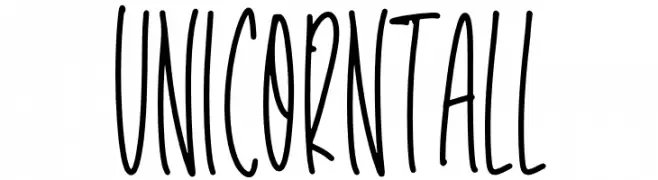
A bold, modern font with thick strokes and strong visual impact.
Bold, rounded handwritten style with playful energy.
A bold, playful handwritten font with energetic curves and a whimsical charm.
A whimsical calligraphic font with fluid strokes and elegant curves, perfect for creative projects.
A graceful cursive font with elegant, flowing characters.
A bold, playful font with rounded characters and a whimsical style.
A playful, handwritten-style font with tall, narrow letters and a whimsical touch.
A playful and whimsical font with decorative loops and rounded elements.
A whimsical, handwritten font with tall, narrow characters and consistent thin strokes.
A whimsical, playful font with flowing, curvy lines and varying stroke widths.
A playful, bold font with rounded, whimsical characters perfect for fun projects.
A whimsical font with unicorn horn and star accents, ideal for magical themes.
A playful handwritten font with a casual and friendly style.
A bold, playful font with vintage charm, perfect for striking headlines.
A playful, rounded font with bold, bubbly characters.
A playful, bold, and bubbly font with rounded characters and whimsical accents.
A bold, dynamic font with whimsical serifs and a playful yet sophisticated aesthetic.
A playful, hand-drawn font with a sketch-like, three-dimensional effect.
A whimsical, handwritten script font with playful, flowing characters.
A whimsical, unicorn-themed decorative font with stars and hearts.
A playful, hand-drawn font with rounded edges and a whimsical style.
A playful, handwritten font with rounded edges and a casual style.
A bold, distressed font with a vintage, textured style.
A whimsical, cursive font with playful loops and magical elements.
A playful, handwritten font with a whimsical and friendly style.
A whimsical, playful font with curly, flowing strokes and decorative elements.
A bold, futuristic font with a geometric and three-dimensional style.
A whimsical, handwritten font with playful curls and swirls.
A bold, playful font with a hand-drawn, whimsical style.
A whimsical, handwritten script font with playful, flowing characters.
A decorative font with bold, patterned letters and whimsical designs.